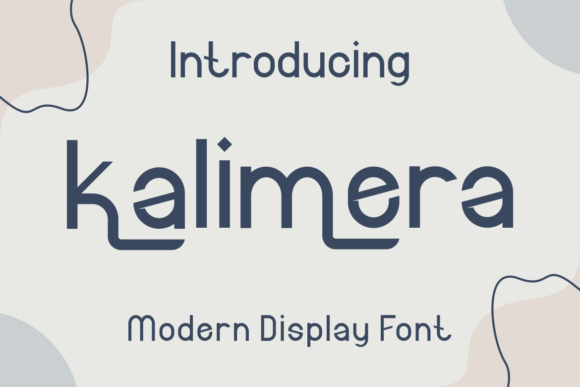
Immerse yourself in the world of Kalimera, a display font family that exudes elegance and sophistication. With its focus on the letter "R," Kalimera captivates the senses with its enchanting curves and mesmerizing strokes. Each letter dances across the page like a graceful ballet, leaving a trail of beauty in its wake.
Crafted by the visionary minds at Marvadesign, Kalimera is not just a font; it's an artistic masterpiece. Its intricate details and flowing lines evoke a sense of timeless wonder, making it the perfect choice for designers seeking to create logos, branding, and quotes that resonate with the soul.
Kalimera's versatility knows no bounds. Whether you're a seasoned designer or just starting your creative journey, Kalimera empowers you to express your individuality and leave a lasting impression on your audience. Its ability to adapt to a myriad of styles and themes makes it an invaluable asset for any design toolbox.
Embrace the allure of Kalimera and watch as your designs transform into captivating works of art. Its timeless elegance will elevate your creations, adding a touch of refinement and sophistication that will leave your audience spellbound.